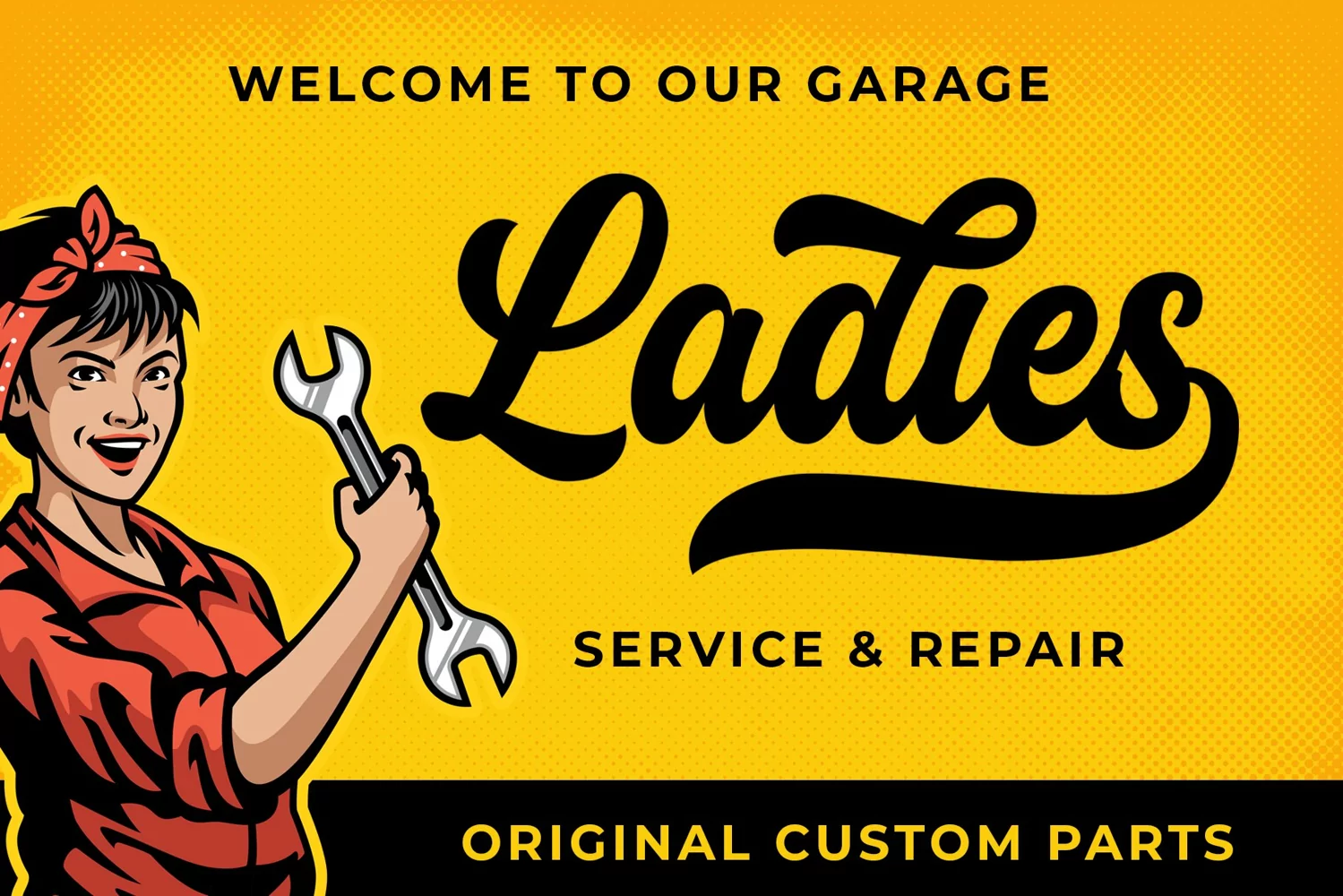
Milenia is bold script typeface inspired by 90s style. It's crafted based original lettering of the author.
Featured with many alternates, Milenia is best and perfect for designing logotype. Moreover, It also nice for designing another design needs such as tshirt design, packaging, branding, logo, labels, badge, magazines, quotes and any others.